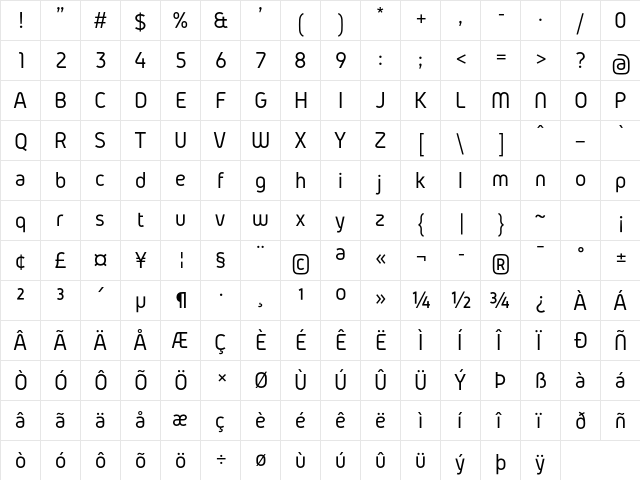
Gidolinya Regular
Design Context for Gidolinya Typeface
Gidolinya offers clean, dependable letterforms without strong stylistic allegiance, making it a practical choice for designers who need flexibility.
Pro Tip: Use Gidolinya in both headline and body roles to test its range before committing to a single application.